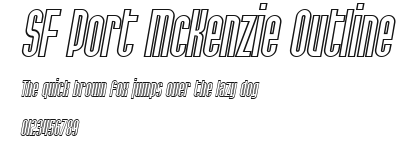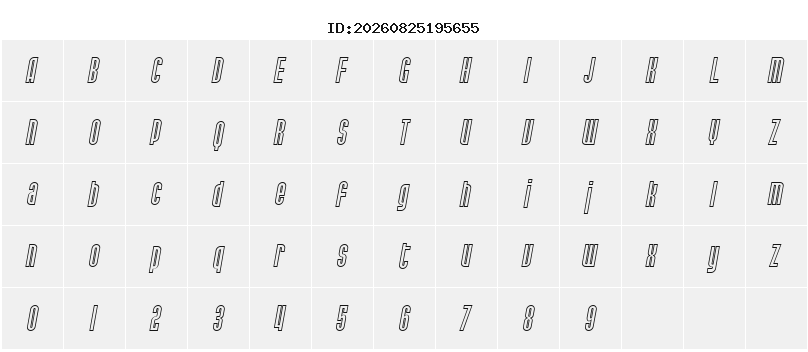
• Font Name: SF Port McKenzie Outline
• Font ID: ShyFontsTypeFoundry: SF Port McKenzie Outline Italic: 1999
• Full Font Name: SF Port McKenzie Outline Italic
SF Port McKenzie Outline.ttf is a modern, elegant sans-serif font designed for ultimate readability and visual harmony. Perfect for branding, headlines, web design, and print materials.